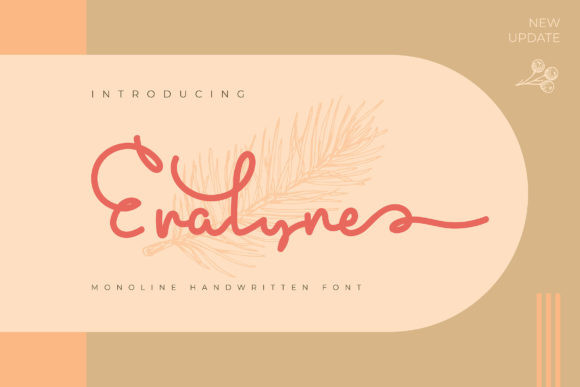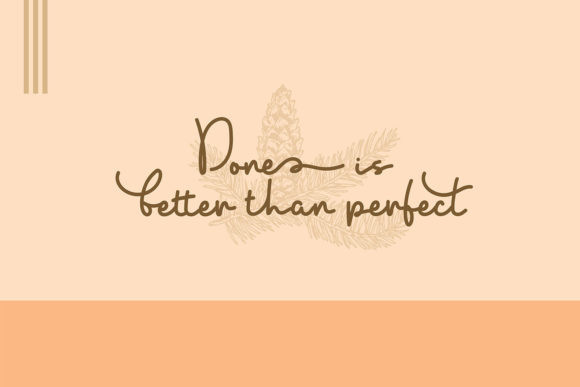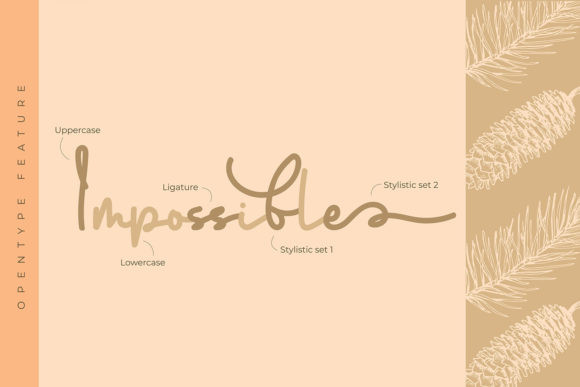
Eralyne Font
Eralyne FontEralyne is a flowing handwritten font. It looks stunning on wedding invitations, thank you cards, quotes, greeting cards, logos, business cards and every other design which needs a handwritten touch.
This font is PUA encoded which means you can access all of the glyphs and swashes with ease!